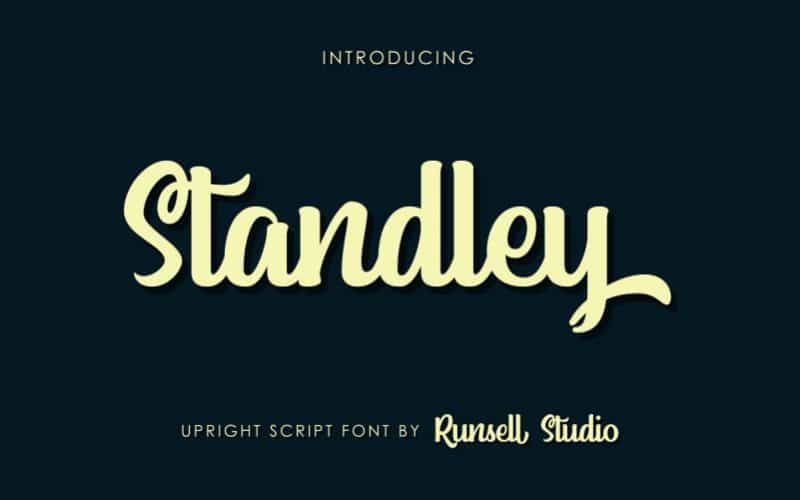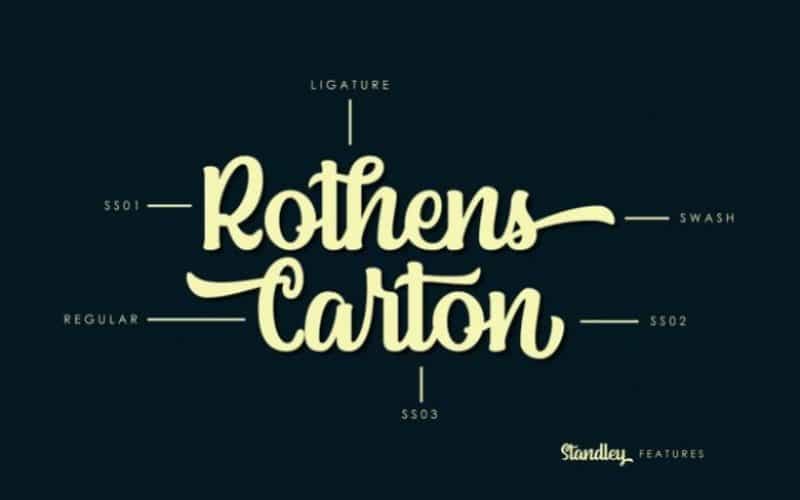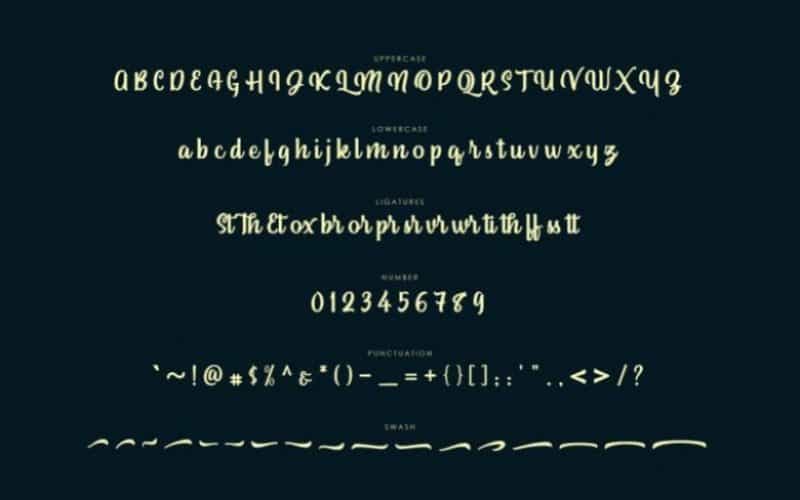
Discover Standley Script Font, part of the Brush collection—a versatile and unique font perfect for adding a personal touch to your projects. Download it for free and enjoy crafting designs with style, from invitations to social media posts. This font is available exclusively for personal use, giving you the freedom to create without limits. Unlock your creativity with Standley Script Font today!
Basically, Standley upright style is well suited for logotype, typography, poster, printed quotes, invitations, cards, product packaging, headers, letterhead, apparel design, label and etc.